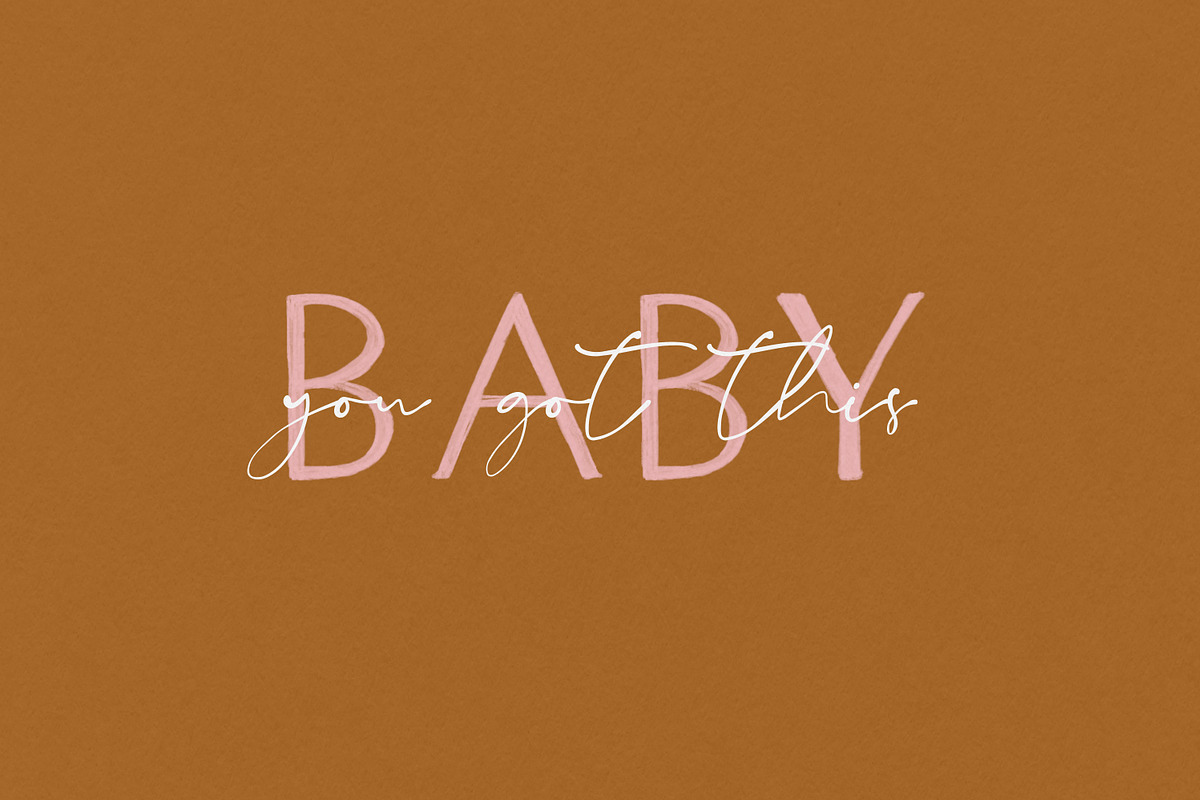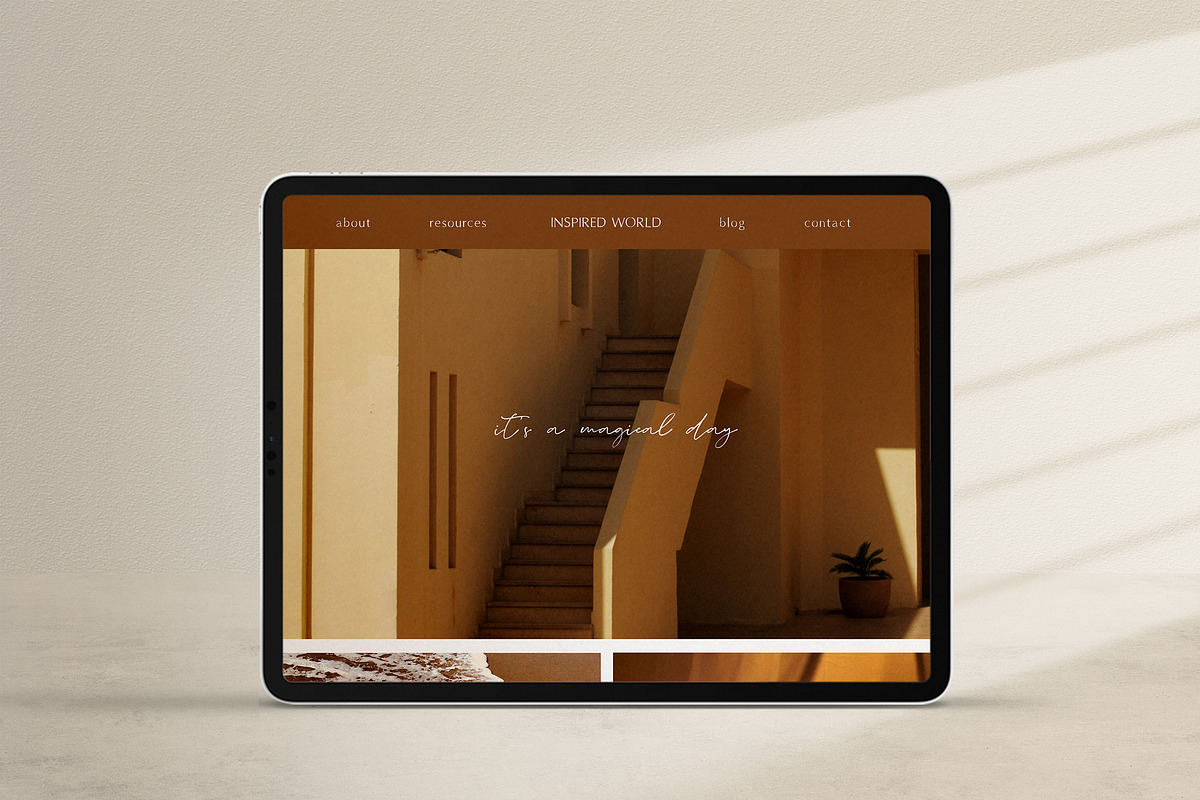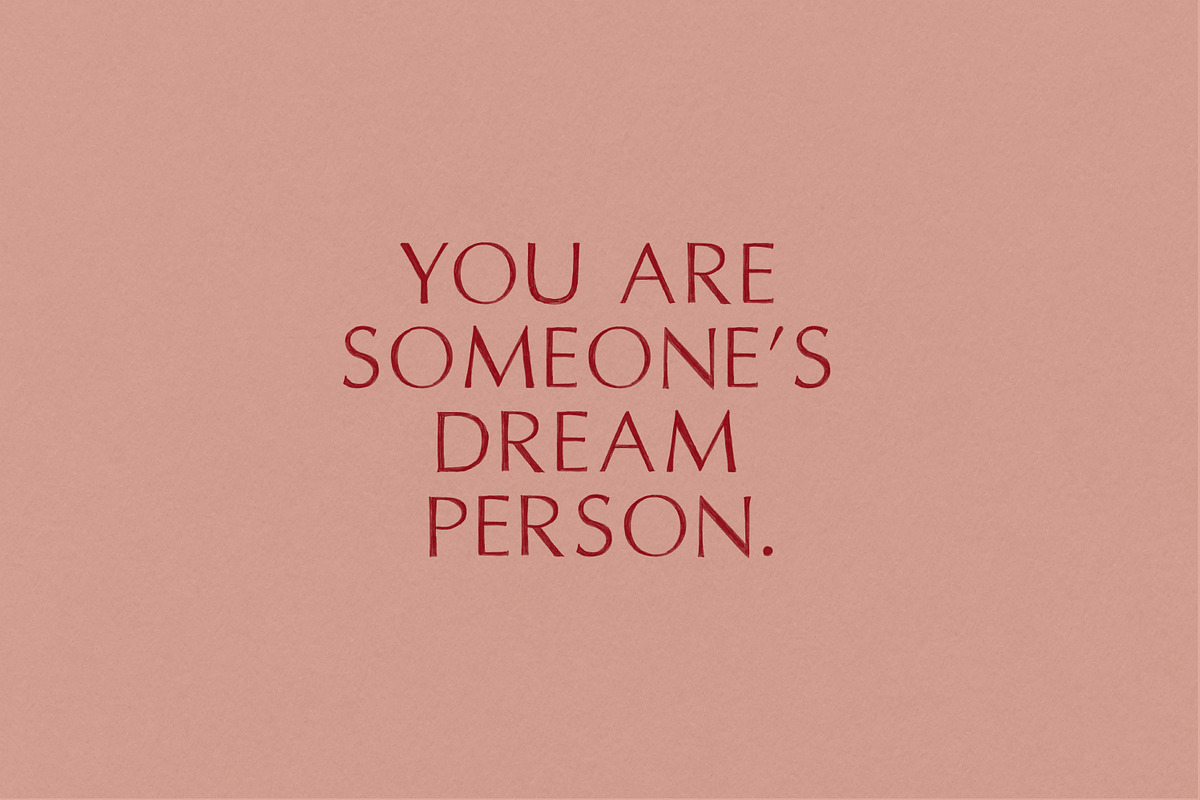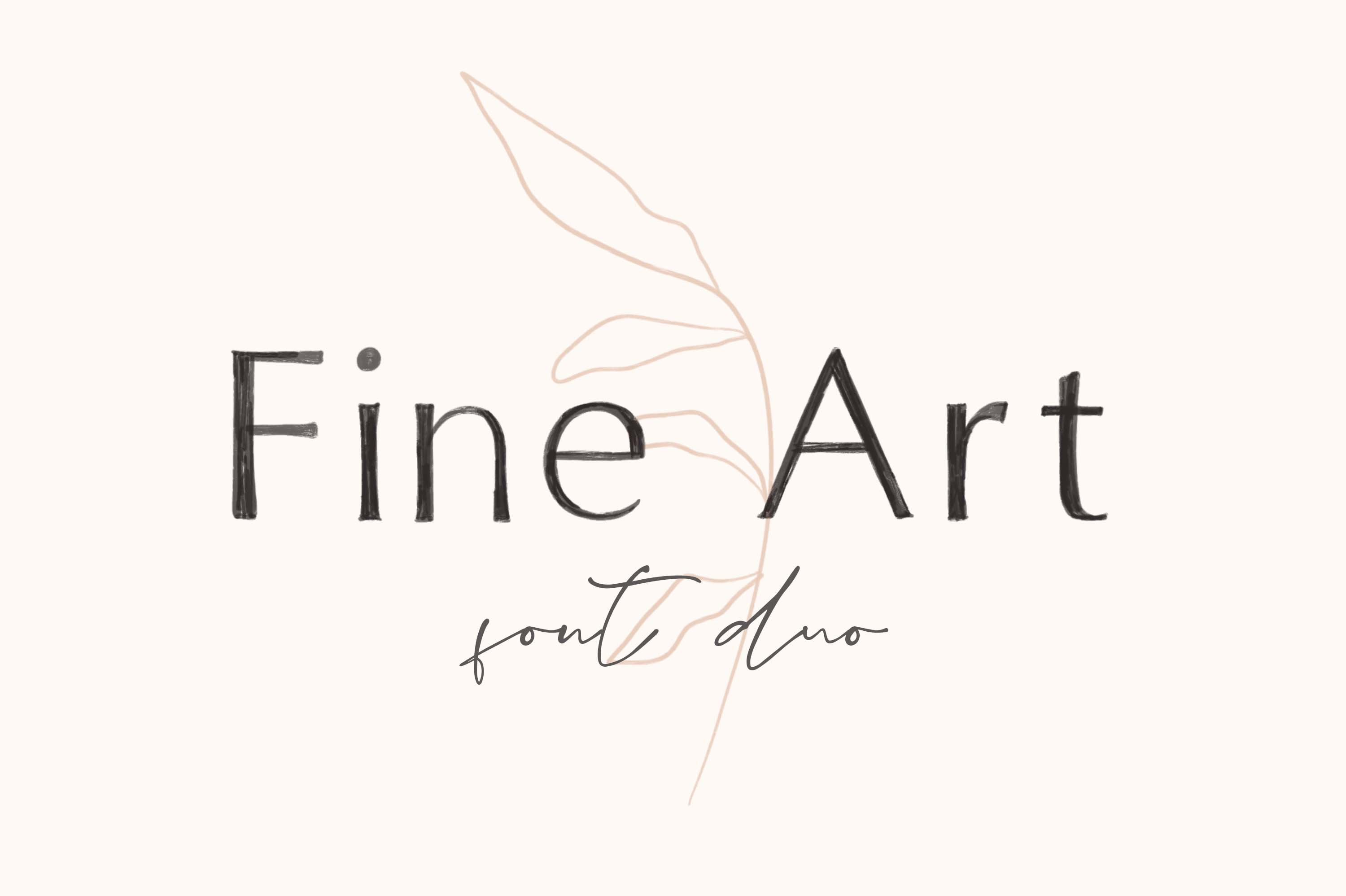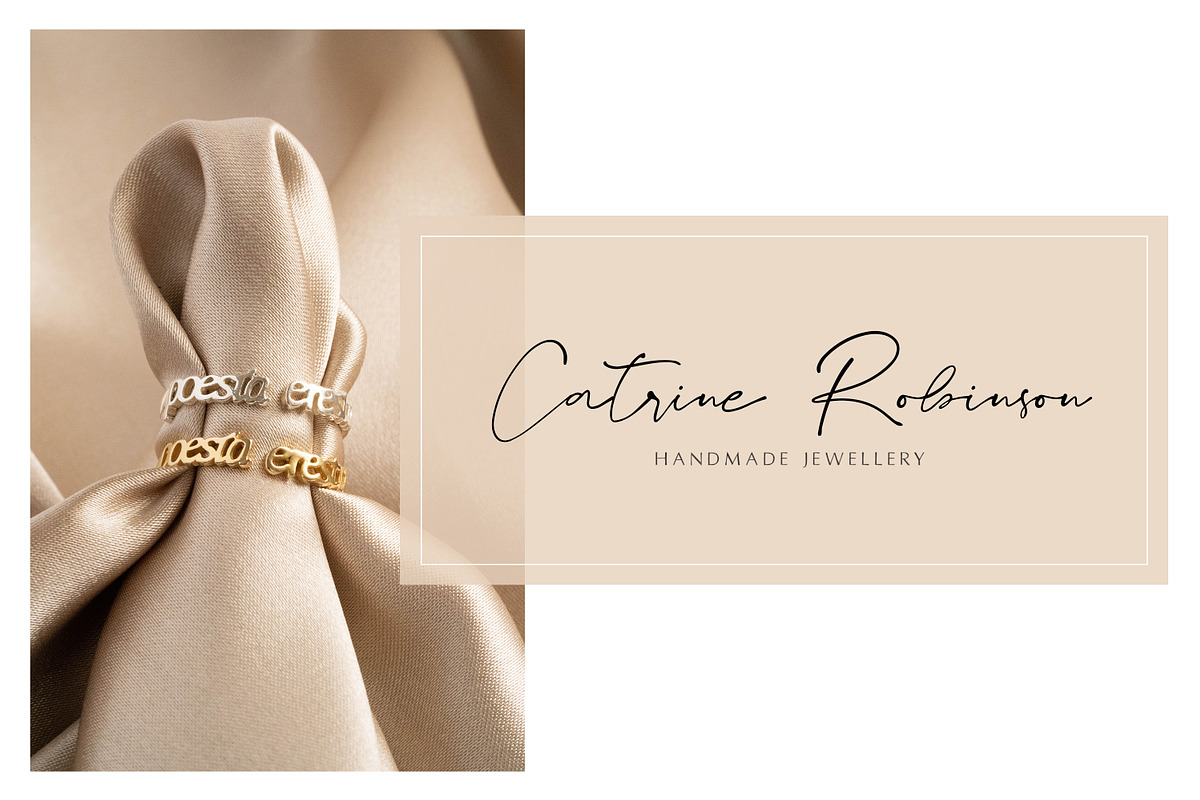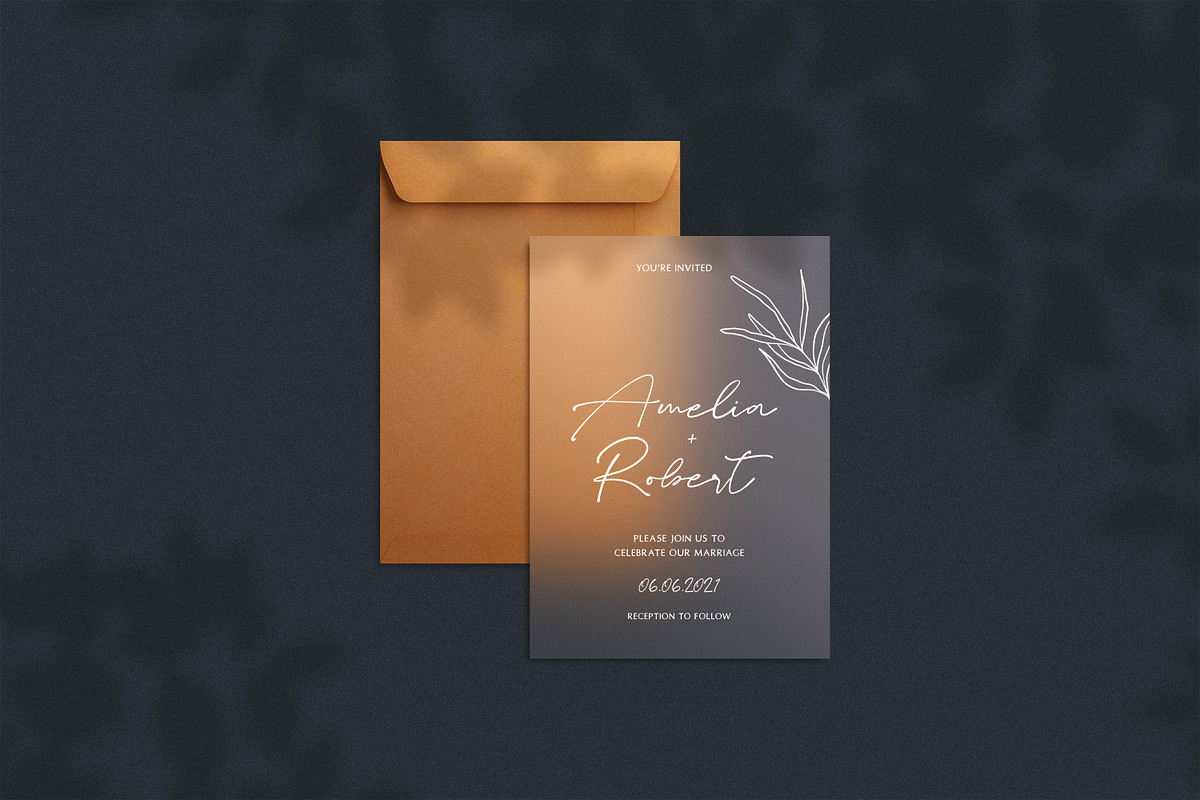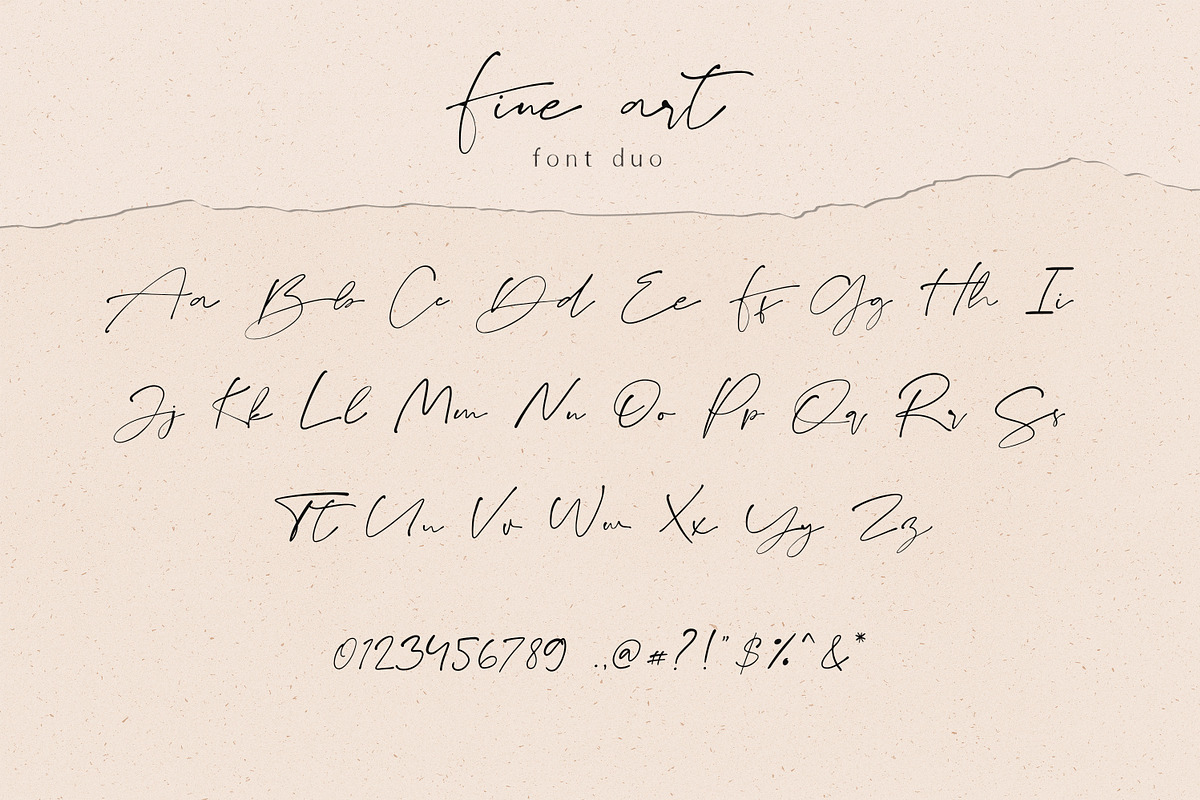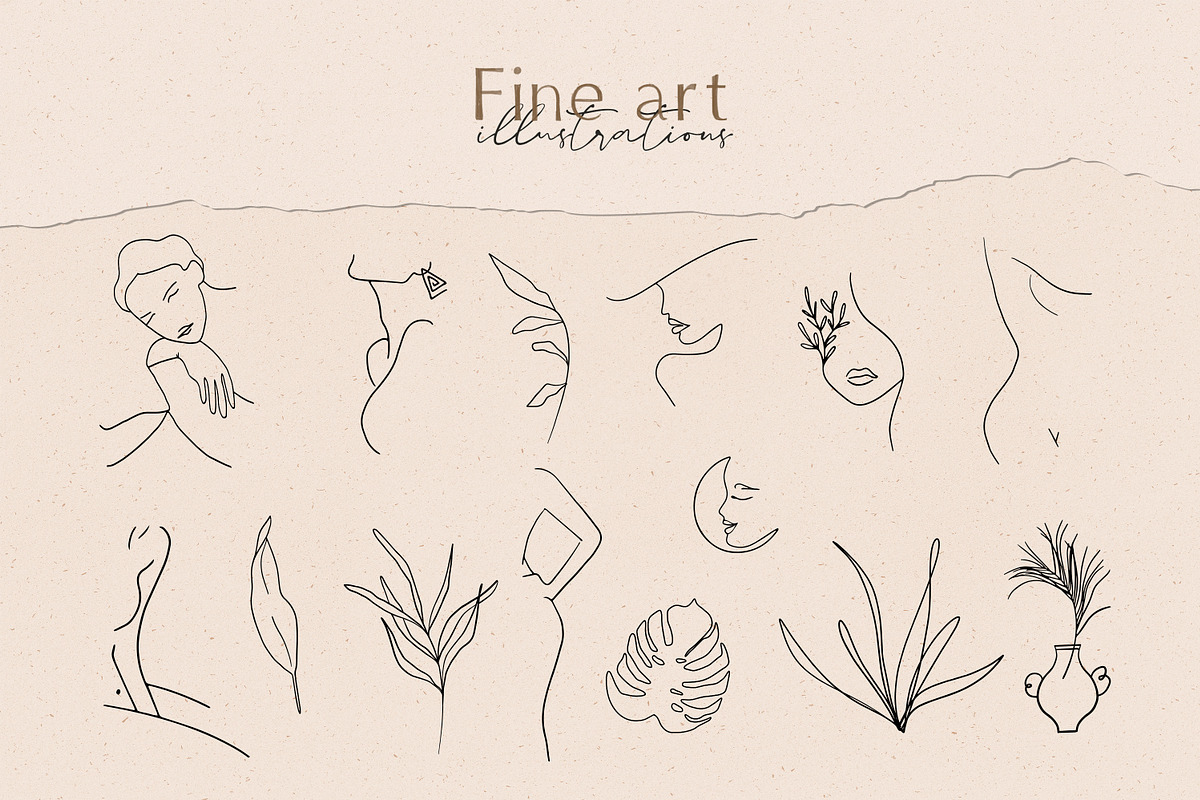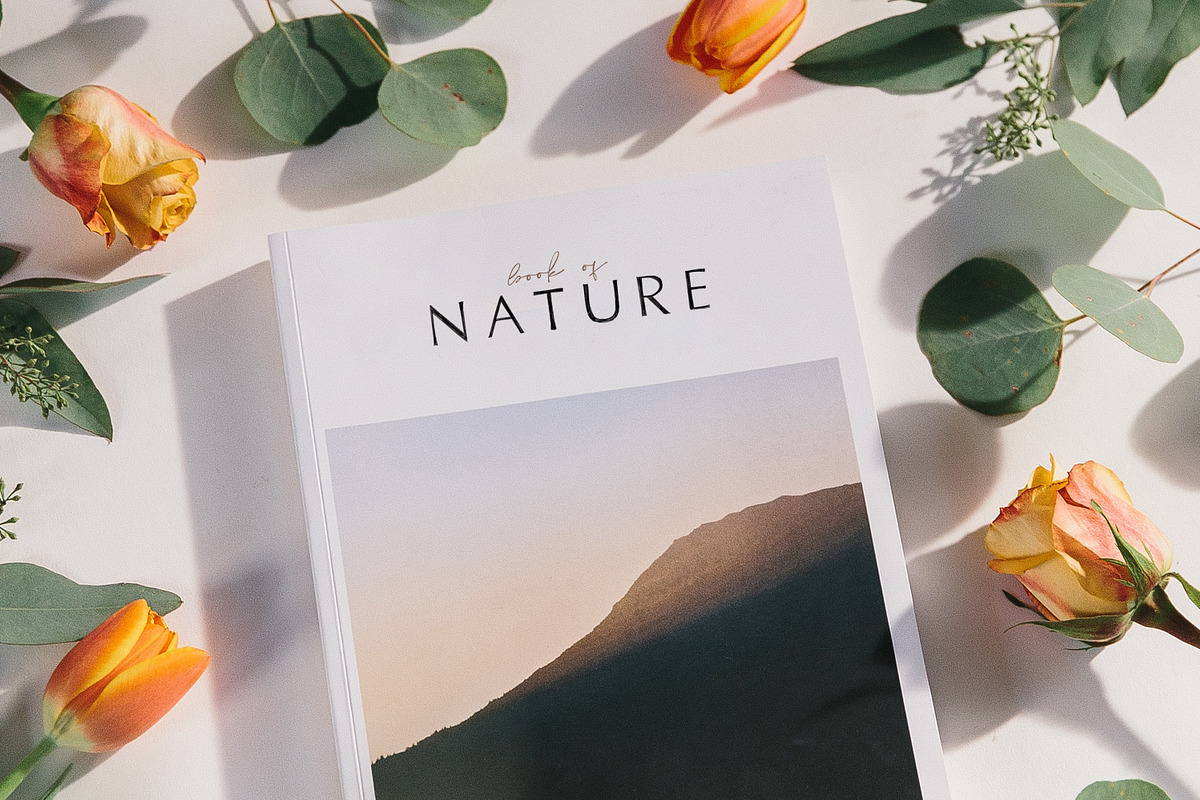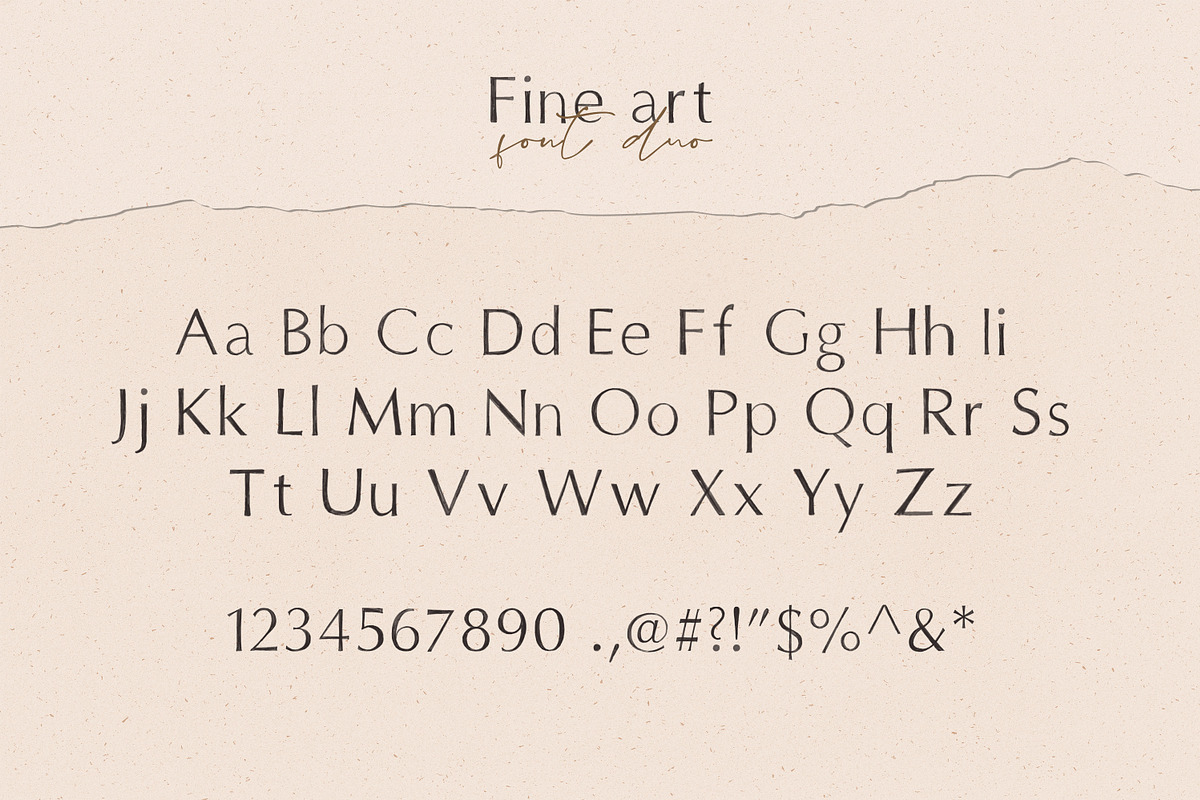
Fine Art is an aesthetic font duo. Hand-painted & elegant design. Perfectly suited to logo, branding, signature, wedding cards, packaging design, stationery, website design and more.
Multilingual support (vector versions).
I've been very much enjoying the Fine Art Font Duo for a number of Animated Wedding Invitation projects. It has solid features to make it versitile, and the design gives it a feeling of being personal and elegant.